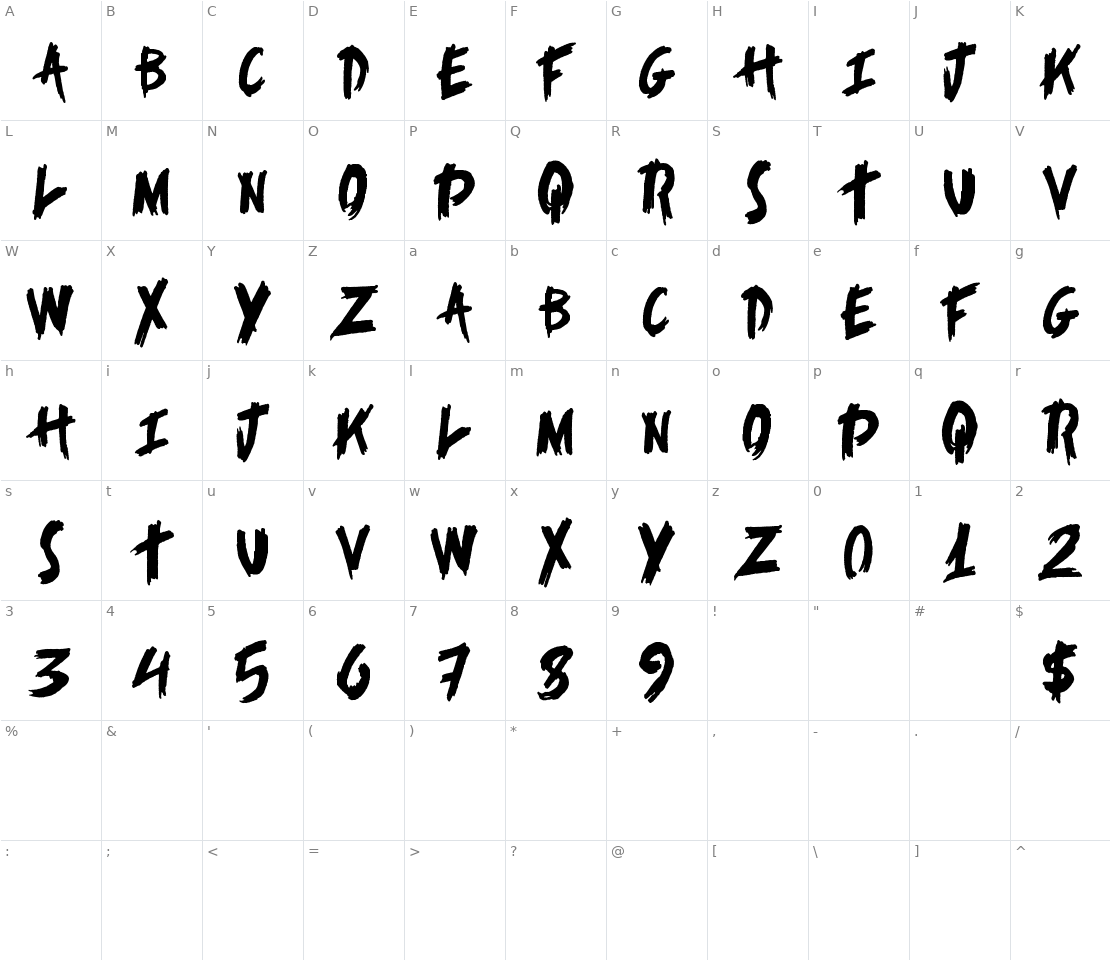
Alert Notice
Alert Notice is a rough, aggressive display face from Xerographer Fonts that looks like it was scrawled in a hurry and then left to decay. The bold, handwritten letterforms have a raw, distressed quality with uneven edges and visible grit, placing it firmly in horror, punk, and grunge territory. Best kept to headlines and short text where you want something that feels urgent and a little threatening.